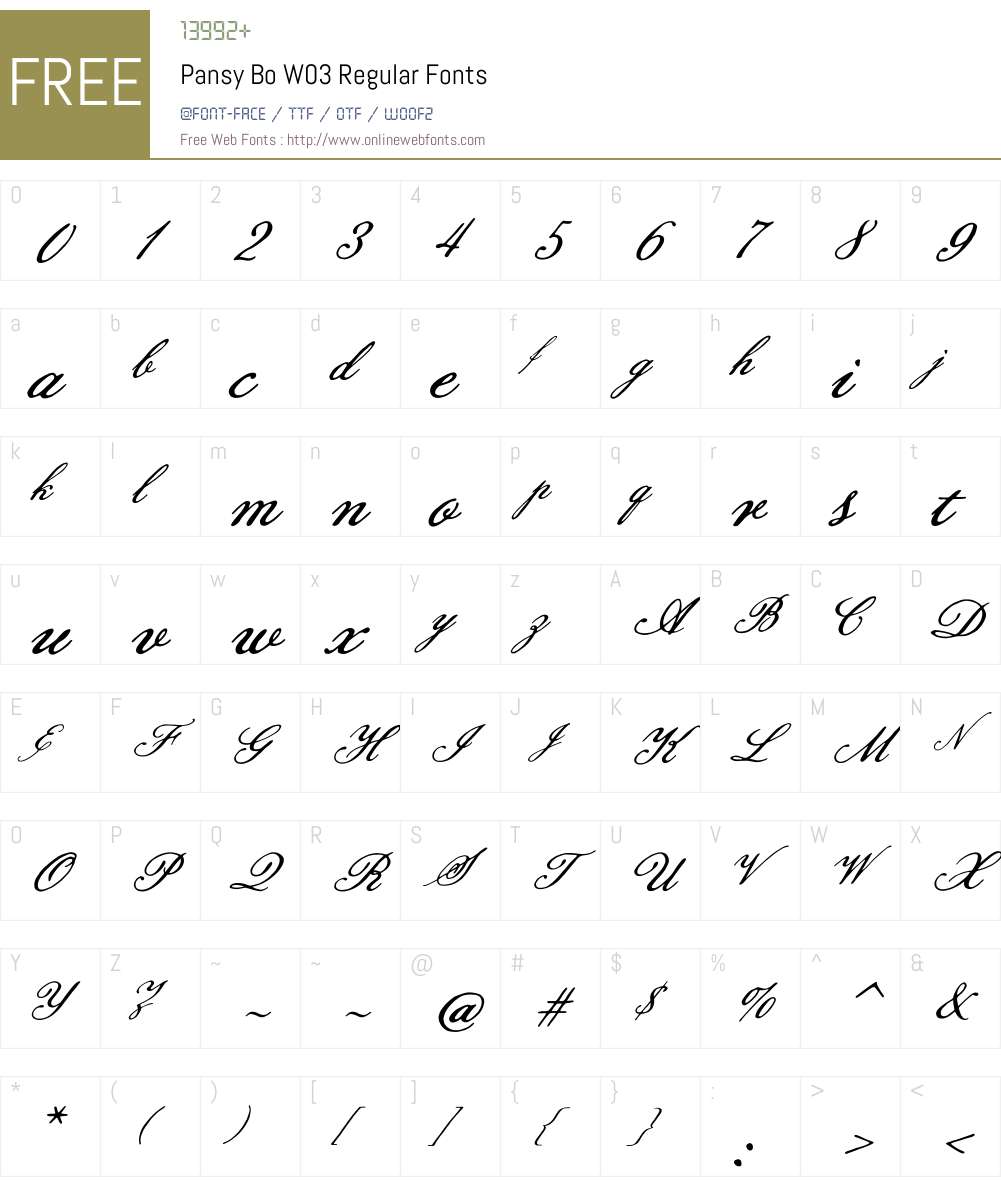
Every font is added and categorized. Web free fonts often have not all characters and signs, and have no kerning pairs (avenue ↔ a venue, tea ↔ t ea). Pansy bo w01 regular font info.
Web the ultimate font download. Web pansy bo is a font from the family of pansy bo, the classifications type of pansy bo is display, formal script, script font type. Antsy pants € by nick's fonts.
Web be aware that the pansy bo font is free for personal knowledge and use only. Thousands of designers (famous or not) use the image font detection system. Based on hong kong ladies’ script in the 19th century.